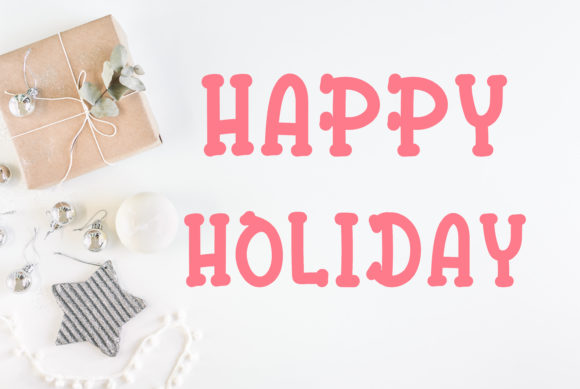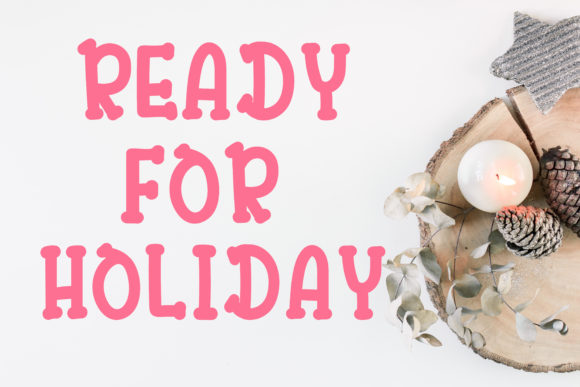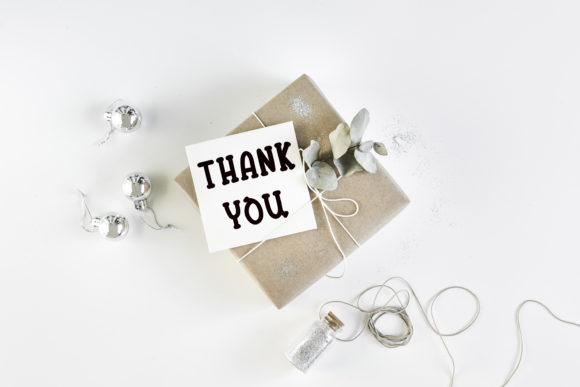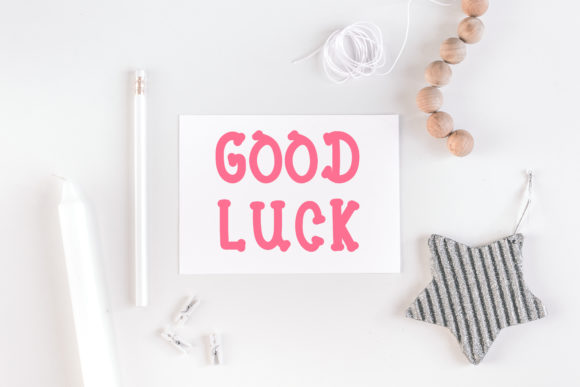
Introduction to Holiday Font
Holiday is a bold handwritten font, carefully handcrafted to become a true favorite.
Its casual charm makes it appear wonderfully down-to-earth, readable and, ultimately, incredibly versatile Holiday will look outstanding in any context, whether itโs being used on busy backgrounds or as a standalone headline.
Key Features of Holiday Font